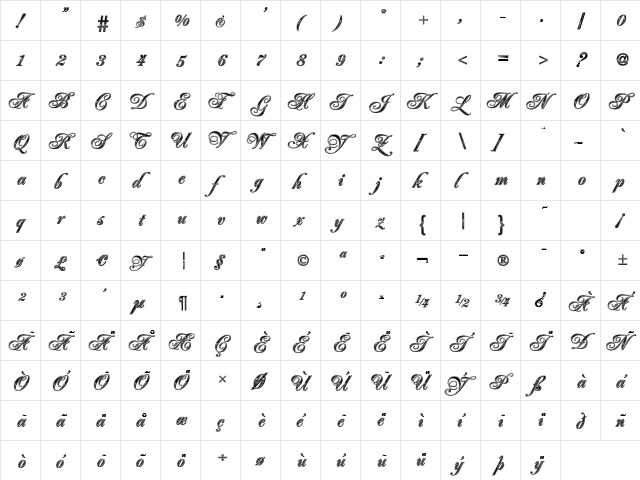
Great Circus Clean Bold
Design Context for Great Circus Clean Typeface
Great Circus Clean is a composed and adaptable typeface that performs quietly and consistently across a wide range of design contexts. Its bold stroke weight gives it real presence on the page.